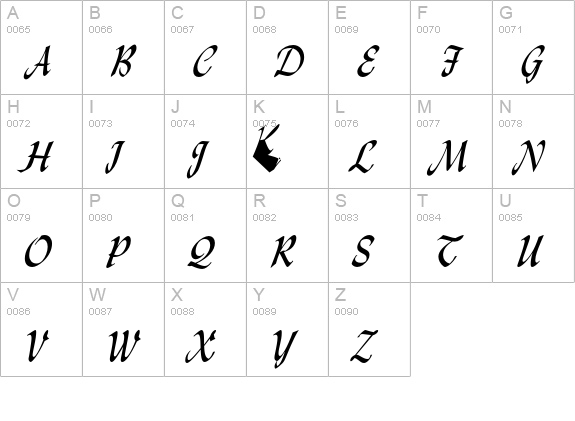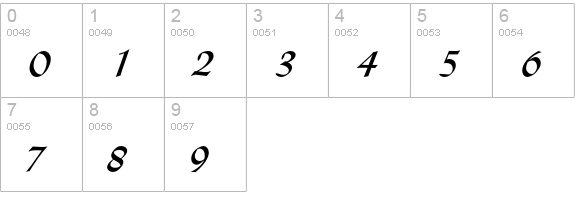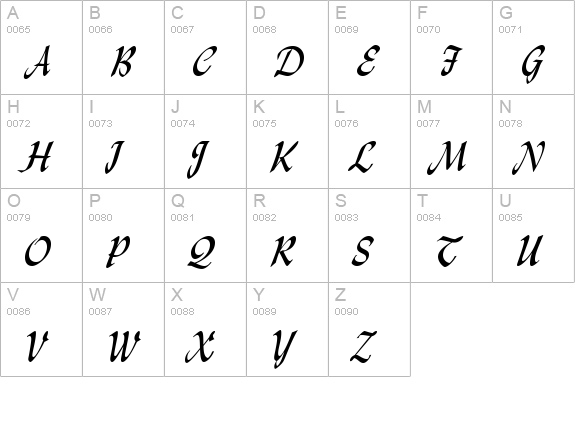
Lydian Cursive Font Details
Lydian Cursive font is a stunning and elegant typeface that exudes a sense of sophistication and refinement. With its flowing and graceful curves, this font is perfect for adding a touch of elegance to any design project. The smooth and fluid strokes of Lydian Cursive create a sense of movement and dynamism, making it a versatile choice for a wide range of applications. One of the best things about Lydian Cursive font is that it is completely free to download. You can easily access this beautiful typeface at FontsMarket.com, where you can download it and start using it in your projects right away. Whether you're working on a wedding invitation, a branding project, or any other design, Lydian Cursive font will add a touch of sophistication and style to your work. Don't miss out on this gorgeous and freely available font – download it today and elevate your designs to the next level!